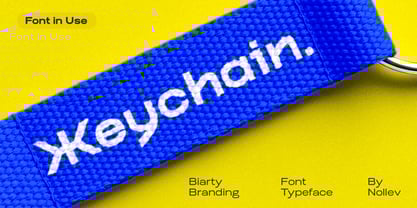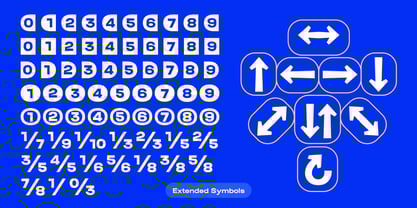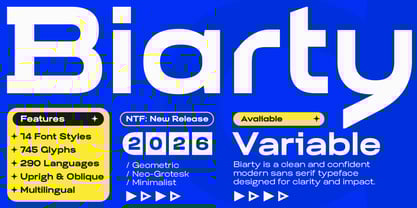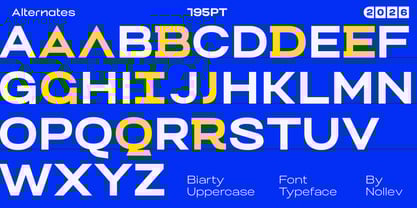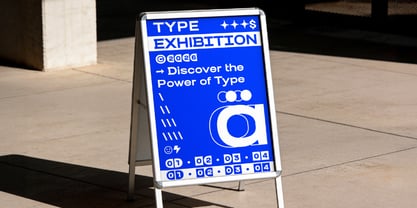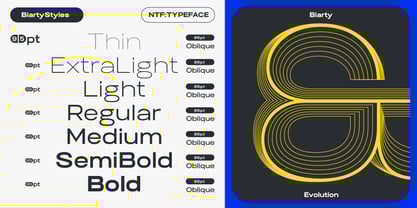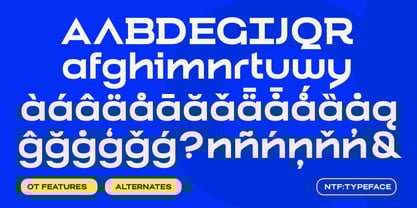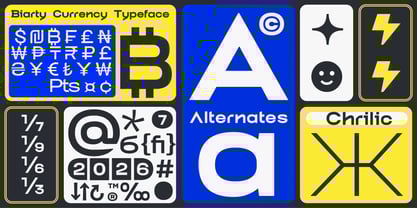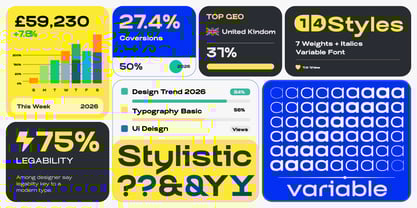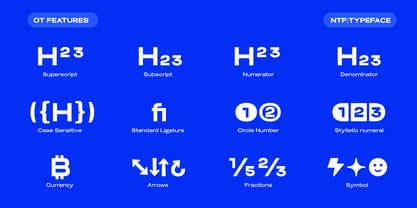
Biarty
The Biarty Font Family was designed by Akhmad Hidayat and published by Nollev. Biarty contains 19 styles and family package options. More about this family
Biarty is a contemporary sans-serif typeface that masterfully blends geometric precision with neo-grotesque simplicity, designed to deliver a clean, confident, and forward-looking aesthetic. Every curve and corner is meticulously crafted to ensure perfect balance and clarity, making it a versatile powerhouse for branding, user interfaces, sleek posters, and high-end editorial headlines. This latest version expands the family to 18 font styles—ranging from Thin to Black, including both Upright and Oblique—and features a highly optimized Variable Font for seamless weight and style control. With an extensive library of 753 glyphs, including a new alternate "V" and refined punctuation, Biarty offers outstanding flexibility and supports over 290 languages. Its minimalist, well-proportioned design ensures exceptional readability at any scale, providing designers with the ultimate consistency and creative control for both print and digital projects.